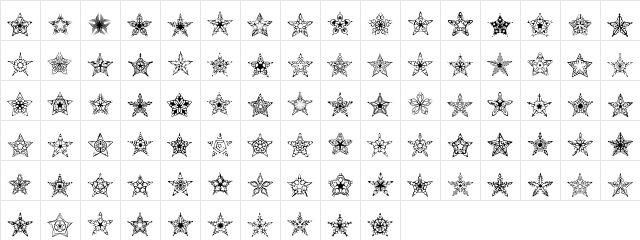
Complete 90 Stars BRK Normal glyph index. Displaying only characters natively supported by 90 Stars BRK Normal font.
90 Stars BRK is a composed and adaptable typeface that performs quietly and consistently across a wide range of design contexts.